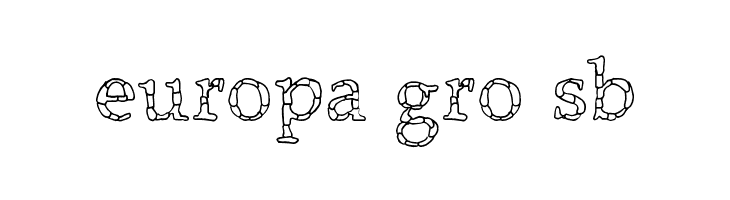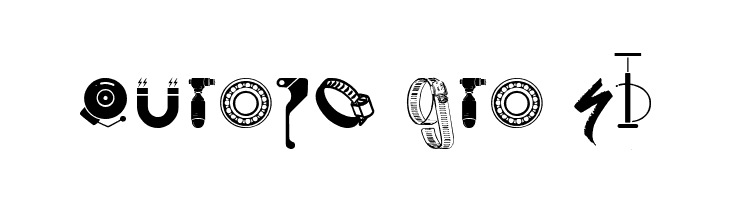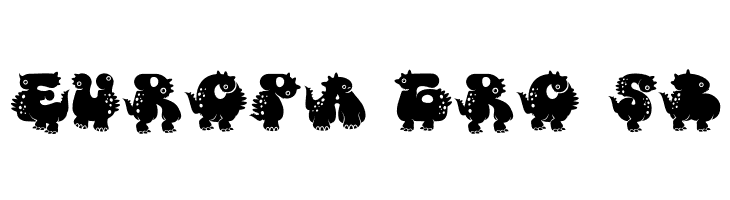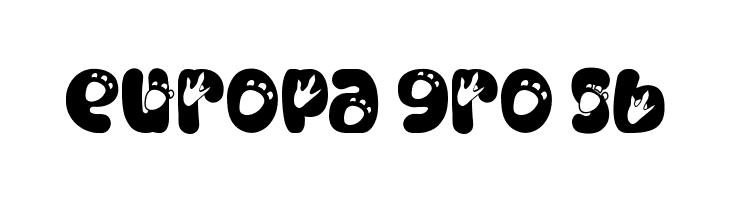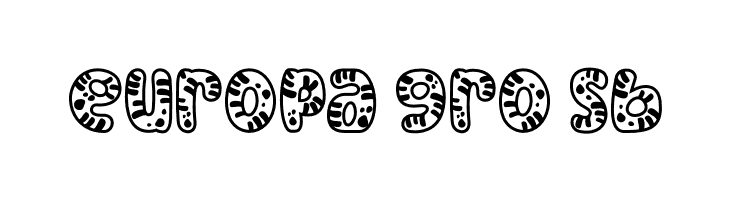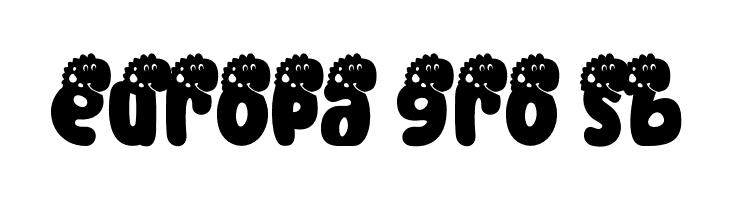
( Fonts by Xerographer Fonts )
A decorative font with a mosaic-like, handcrafted appearance.
( Fonts by Andrea Steffen )
A decorative font inspired by bicycle and mechanical parts, ideal for thematic displays.
( Fonts by Edy Wiyono )
A playful, monster-themed font with bold, cartoonish characters.
( Fonts by PutraCetol Studio )
A playful, dinosaur-themed font with bold, patterned characters.
( Fonts by PutraCetol Studio )
A playful, dinosaur-themed decorative font with bold, rounded characters and integrated footprints.
( Fonts by PutraCetol Studio )
A playful, dinosaur-themed decorative font with bold, rounded characters.